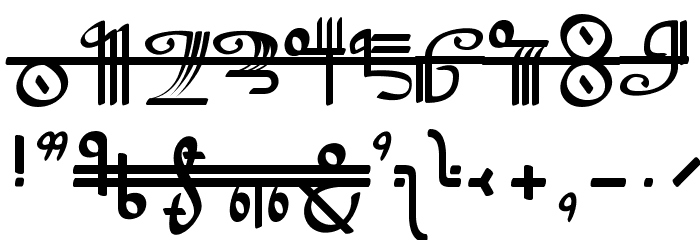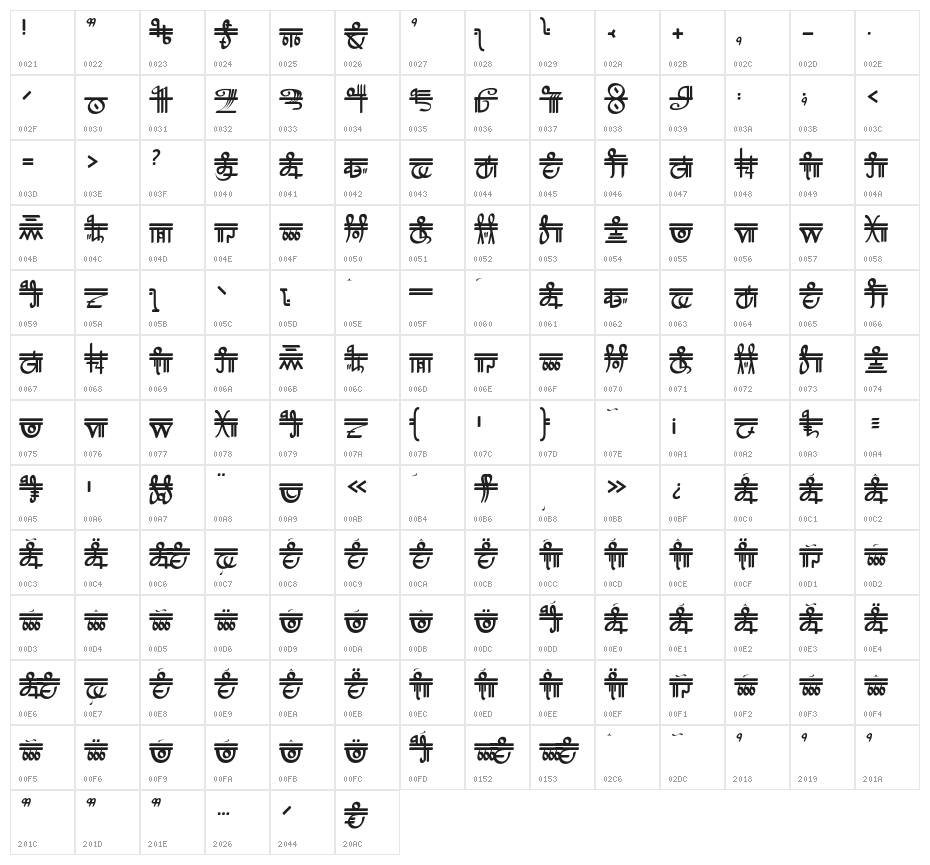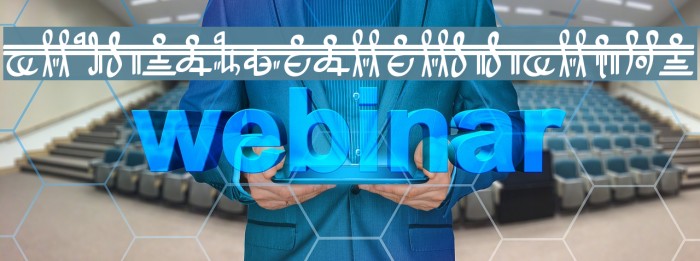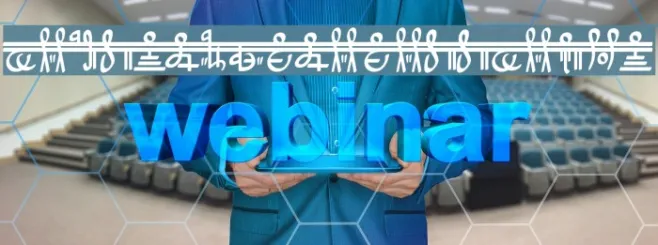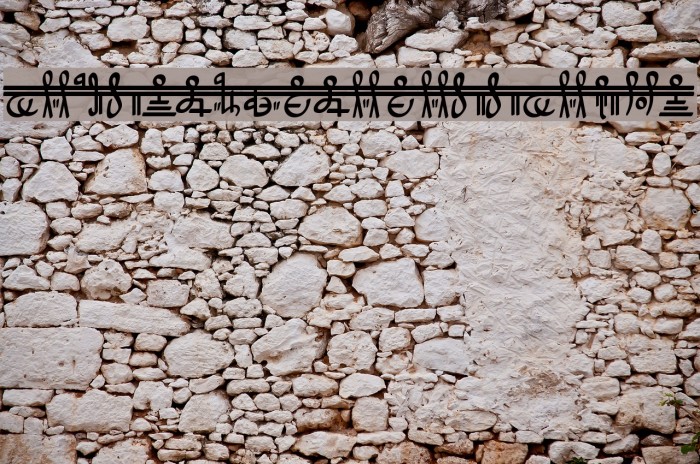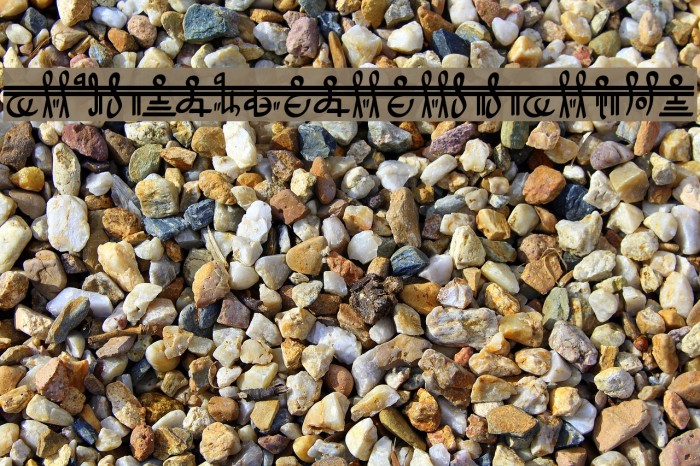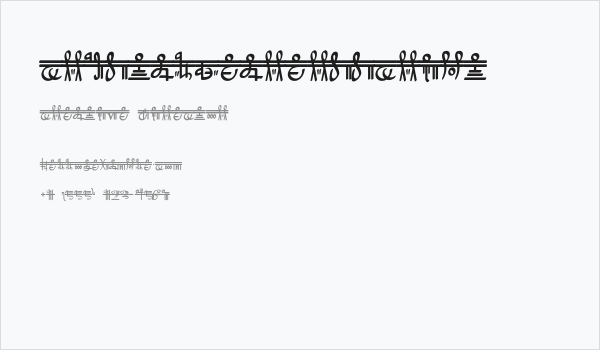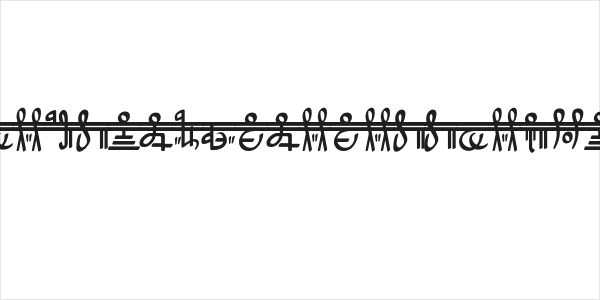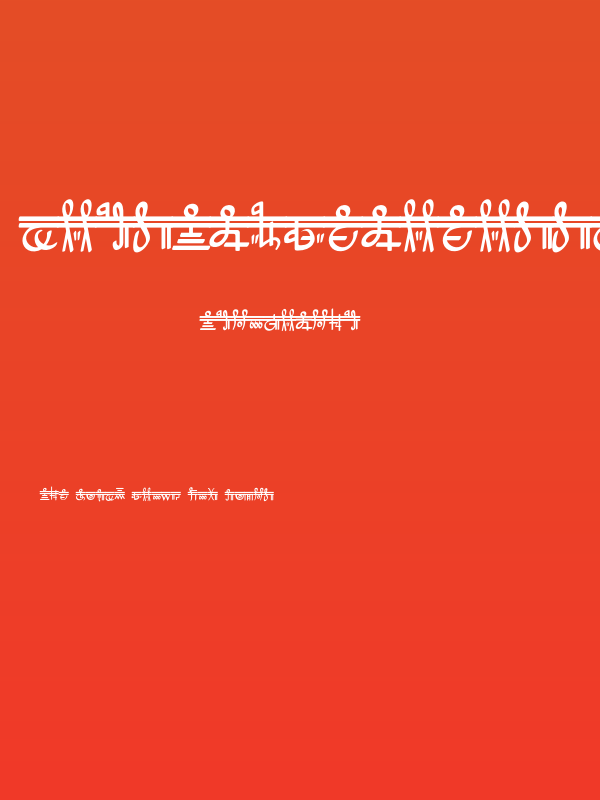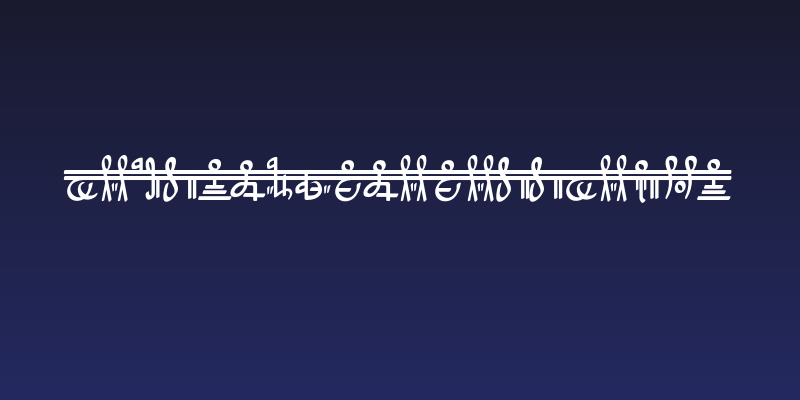
CrystalBearersScript Font
CrystalBearersScript Description
This font features a highly decorative and intricate design, characterized by its unique and elaborate glyphs that resemble ancient scripts or mystical symbols. The characters are adorned with loops, swirls, and extended strokes, creating a sense of mystery and fantasy. The overall appearance is both artistic and complex, making it suitable for projects that require a touch of the exotic or otherworldly. The font's style is reminiscent of calligraphy, with a strong emphasis on decorative elements that enhance its visual appeal.
| Use Case | Logos, Titles, Decorative text |
| Proposed Projects | Ideal for fantasy-themed designs, game titles, book covers, or any project needing an exotic and mysterious aesthetic. |